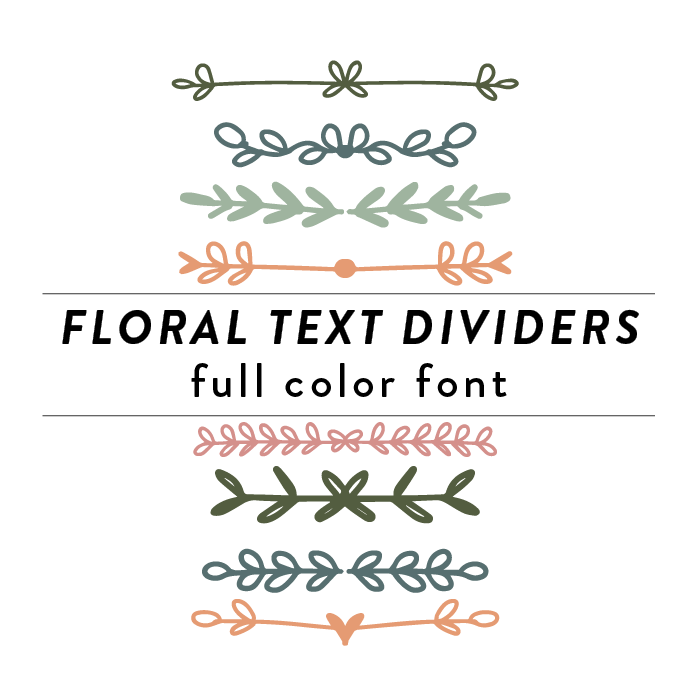
Floral Text Dividers Full Color Font is a unique design featuring intricate floral patterns in vibrant colors. The font style is elegant and decorative, perfect for adding a touch of whimsy to any craft or DIY project. This font is ideal for creating eye-catching headers, titles, invitations, and other creative projects that require a touch of floral elegance.